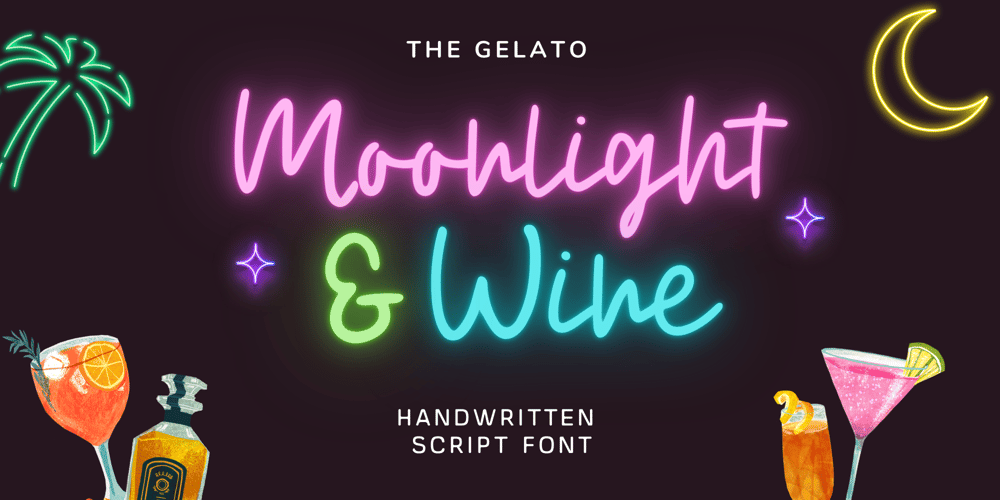
Moonlight And Wine Font Family was designed by Thitawan Noenpoempisut and published by The Gelato. Moonlight And Wine contains 1 styles and family package options. The Moonlight & Wine Font is a Handwritten Monoline Font that is perfect for the Neon effect! It can be used as a Neon Handwritten Script Font, Monoline Script Font, Signature Script Font, Summer Handwriting Font, Neon Party Font, Neon Signboard Font, Neon Banner Font, Neon Font for Party Invitations, DJ Logo Font, Y2K Neon Font, Neon Sign Font, Neon Light Font, Neon Wedding FontPerfectly suitable for numerous use such as quotations, banners, logos, product packaging, titles, headers, Business cards, menu lists, and invitation cards!_________________________________Language Support: Multilingual Support_________________________________**The preview images are to showcase fonts only and are NOT included.****The Font comes with a solid version. To add a NEON effect, You can use programs like Canva, Illustrator, Photoshop etc.**_________________________________🍦COMPATIBLE PROGRAMS (NOT LIMITED TO):Canva Pro, GoodNotes, Notability, Keynote, Pages, Numbers, Procreate, Photoshop, Illustrator, Cricut, Silhouette, InDesign, Microsoft Word, and more! ++_________________________________